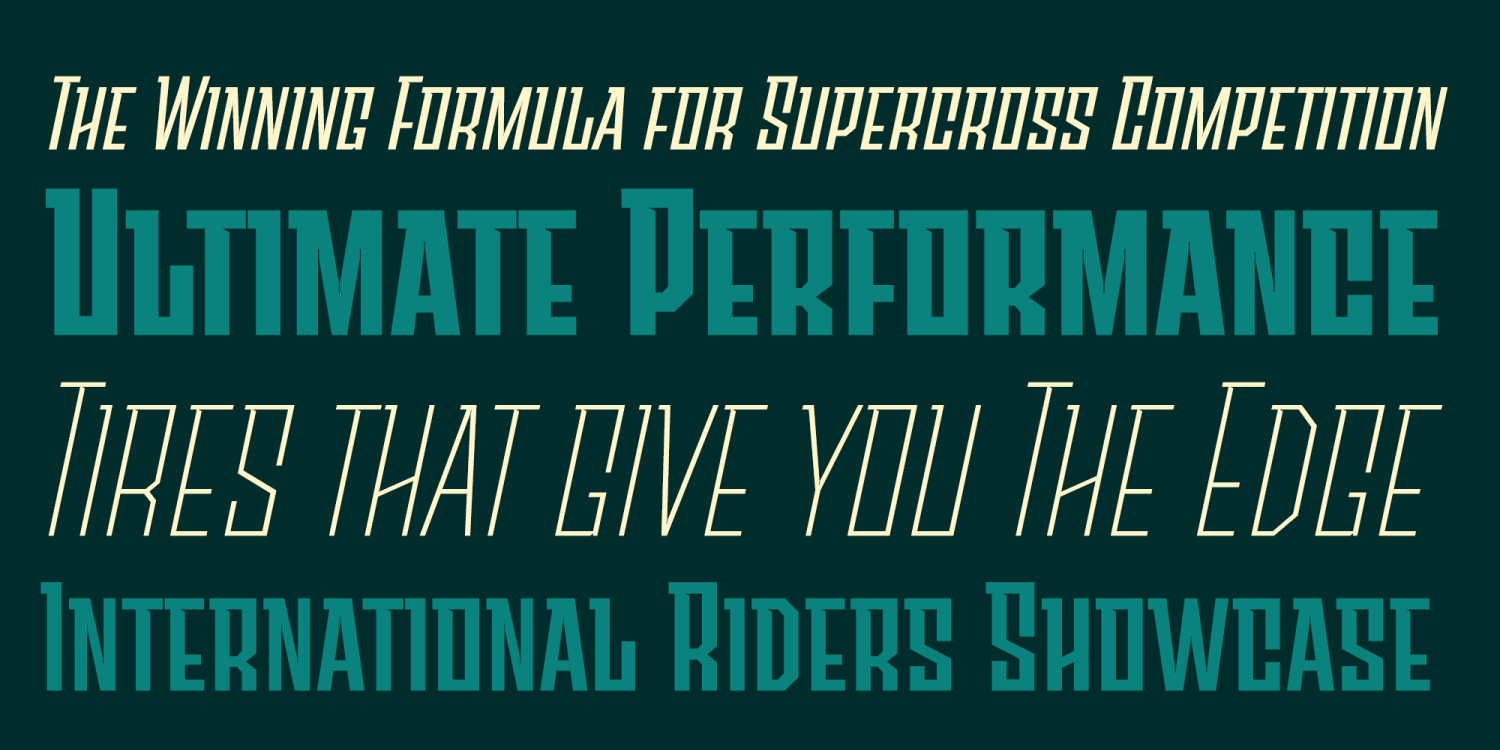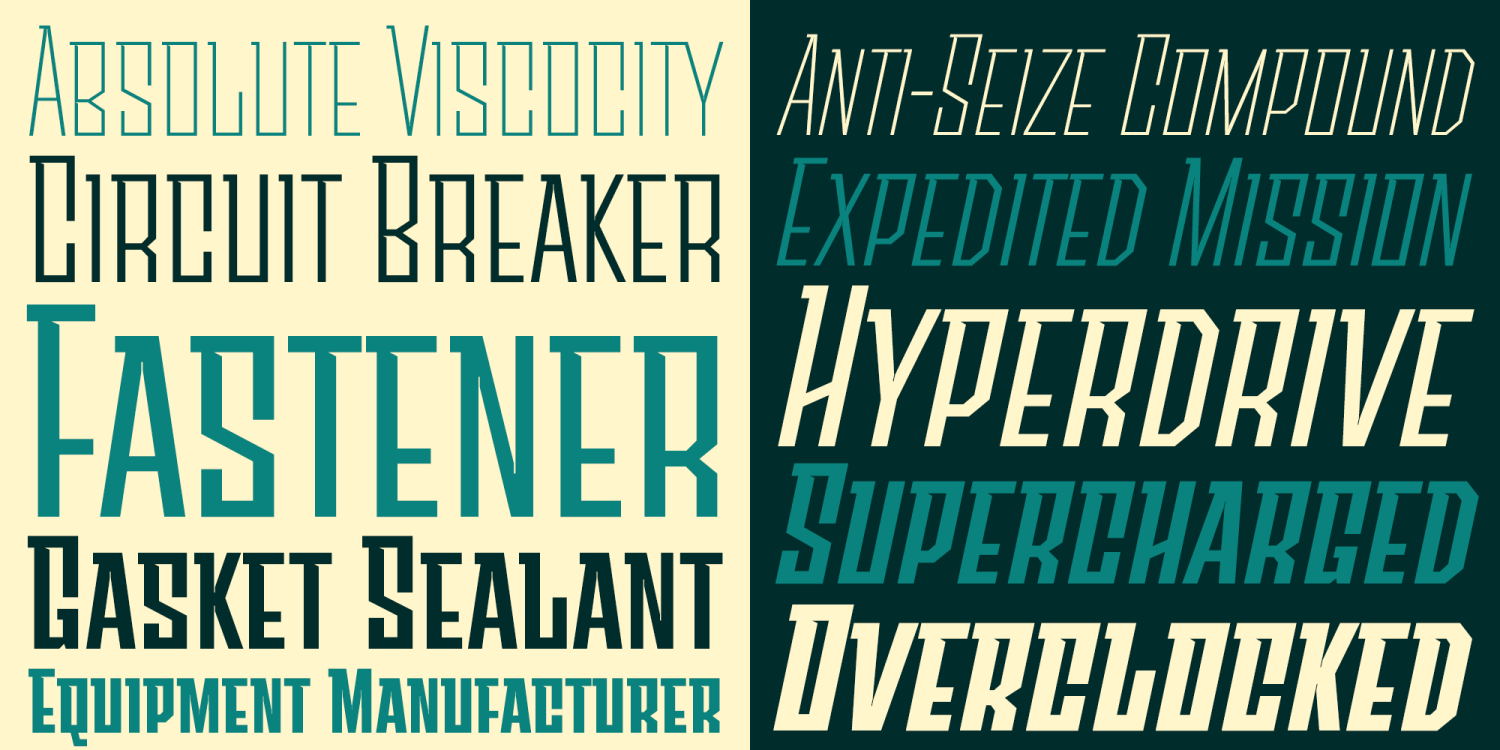
About Sturgeon
Inspired by the pulse-pounding rush of adrenaline and infused with an industrial edge, the Sturgeon font family is here to make a statement. Whether you're crafting eye-catching titles or making a statement with your brand, Sturgeon is your ultimate…